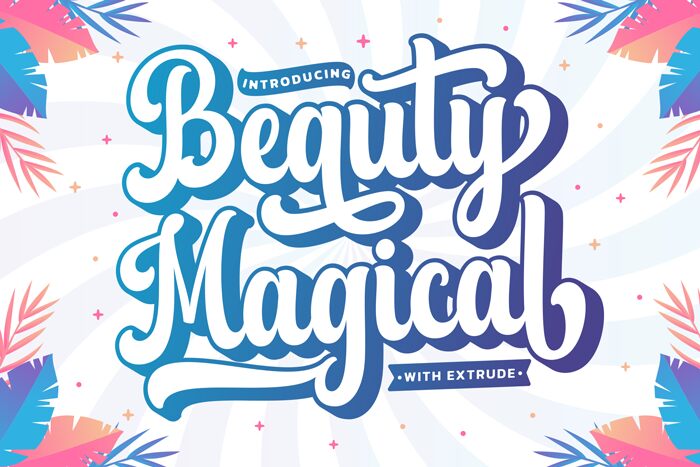
Beauty Magical, a captivating creation by renowned font designer Hoperative, enchants with its smooth brush strokes. This exquisite font exudes elegance and sophistication, making it perfect for wedding invitations, feminine branding projects, and fashion magazines. Its versatile semi-bold typeface is ideal for headers and titles, adding a touch of magic to any design. The seamless combination of smooth curves and delicate lines creates a harmonious balance that will elevate your creative endeavors. Unleash the enchantment of Beauty Magical in your next project and let it cast its spell on your audience's hearts.